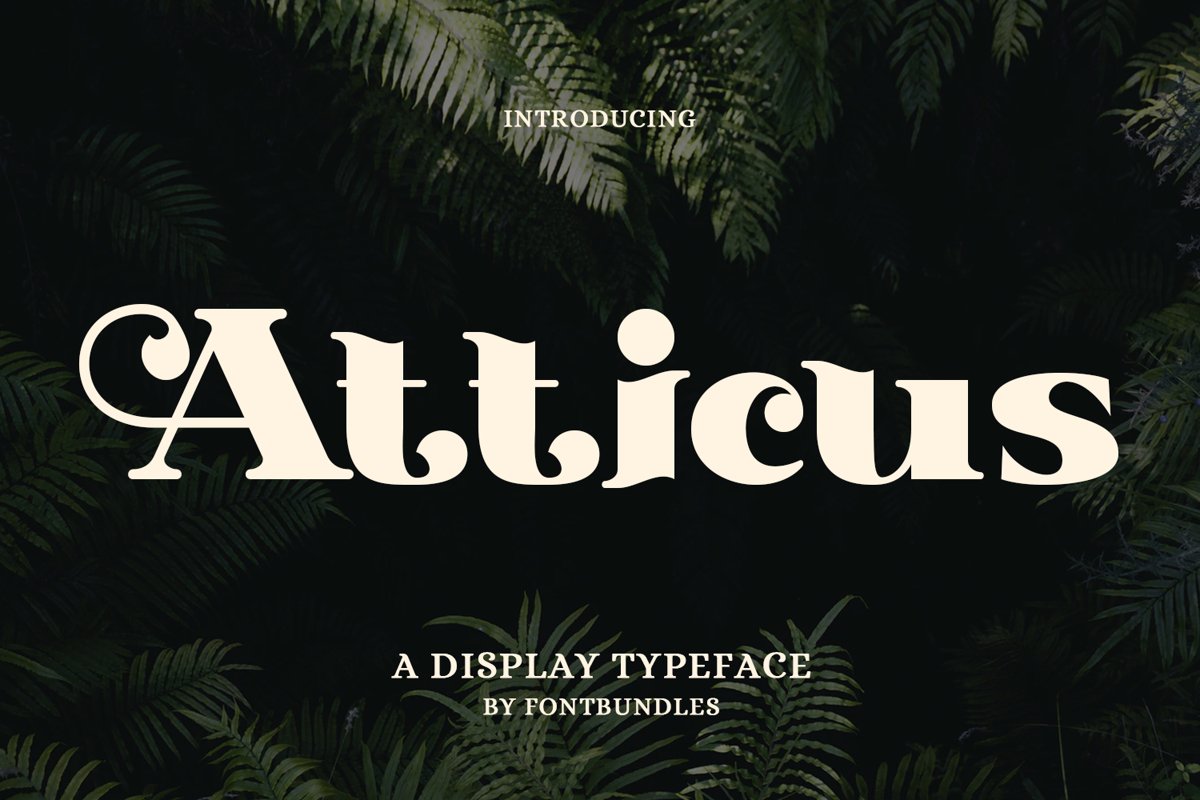
Atticus is a display typeface. Perfect for quotes, logo, logotype, wedding needs, business card, name card, header, merchandise, packaging and many more.